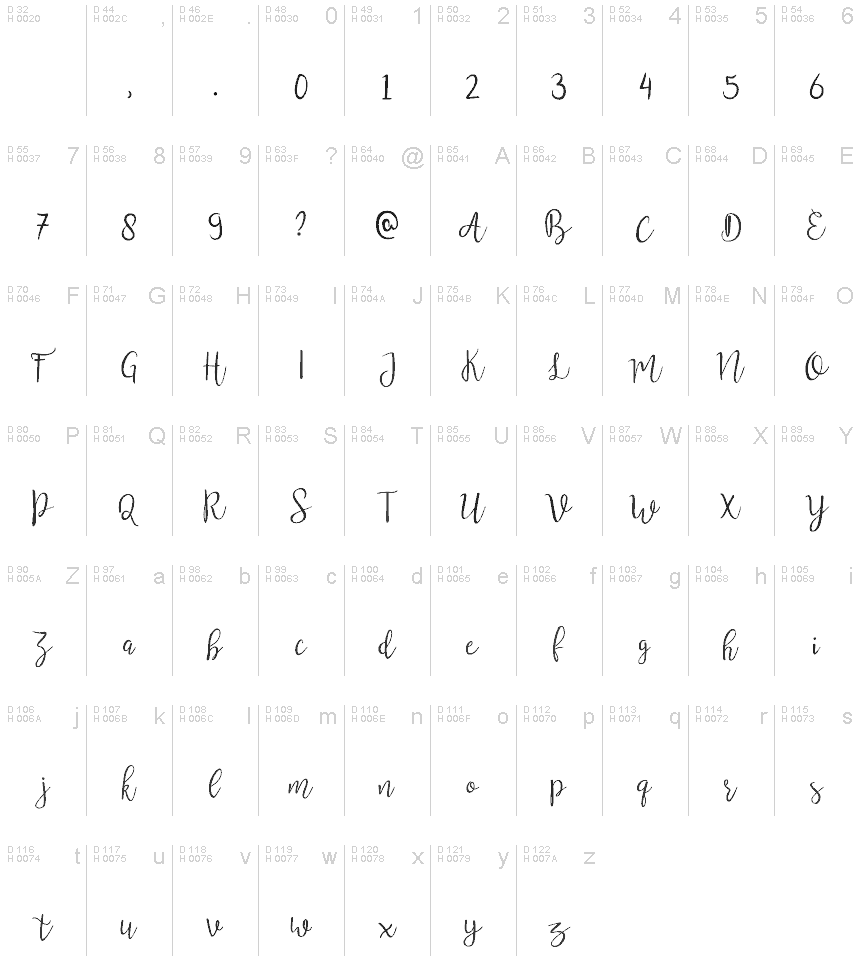
wisteria
Introducing the elegant new winteria brush script Font! For those of you who are needing a touch of elegance and modernity for your designs, this font was created for you!